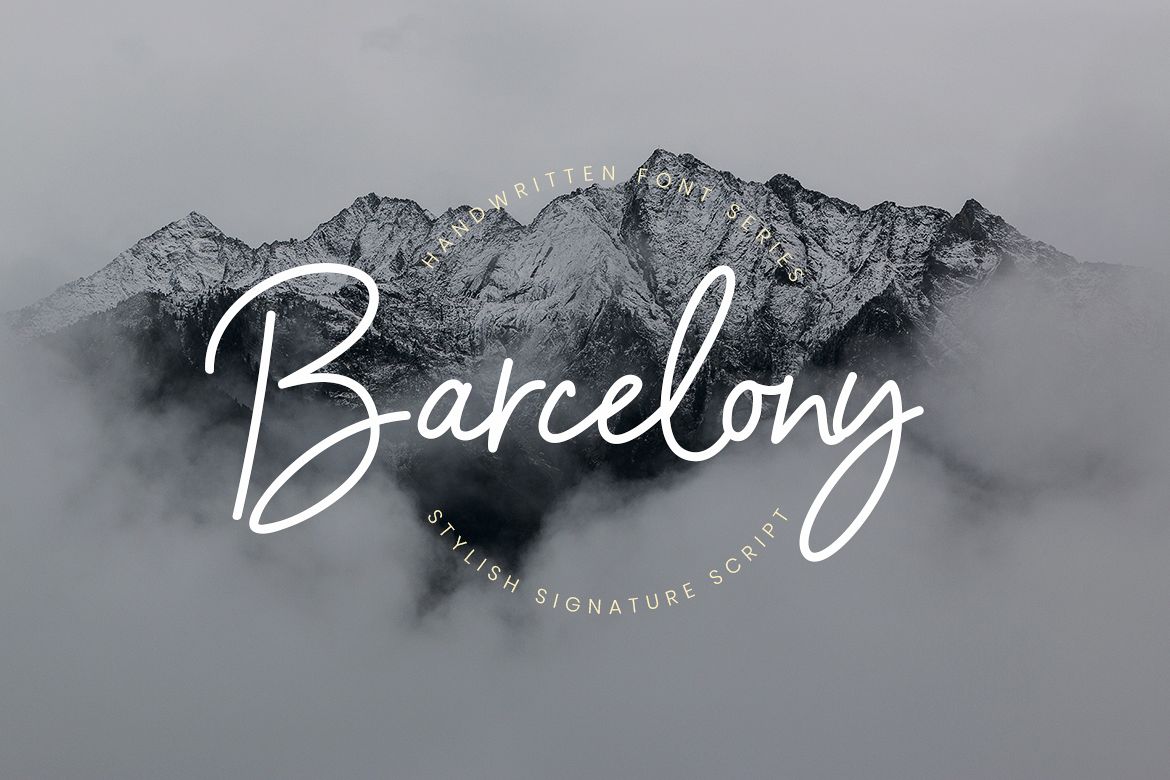
Barcelony Signature
Barcelony Signature is a elegant and a smooth casual monoline signature stylish script.
Barcelony Signature is perfect for branding projects, logo, wedding designs, social media posts, advertisements, product packaging, product designs, label, photography, watermark, invitation, stationery and any projects that need handwriting taste.
• Tons of glyphs